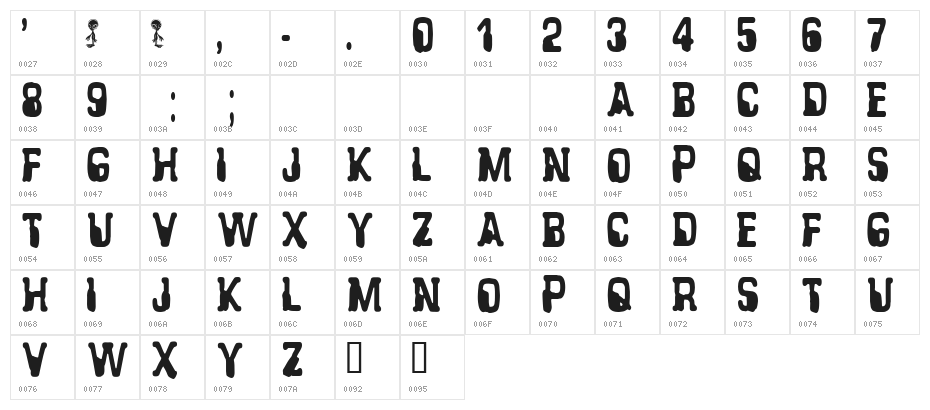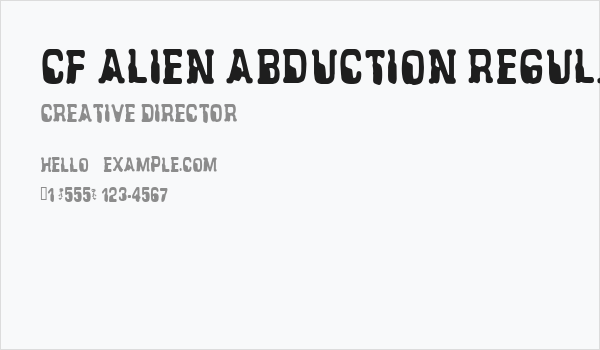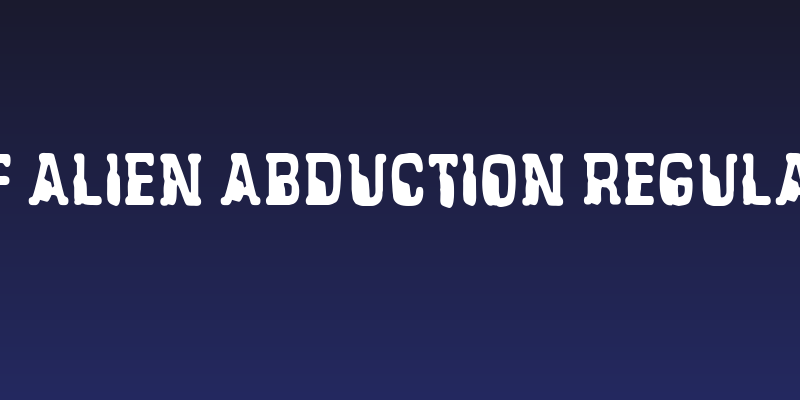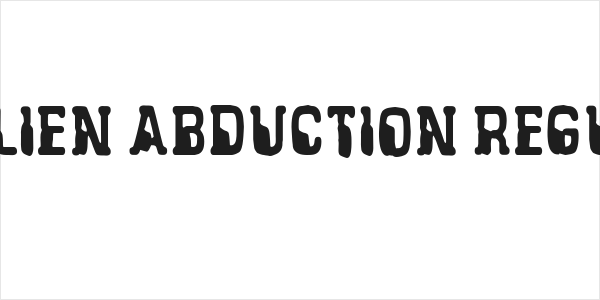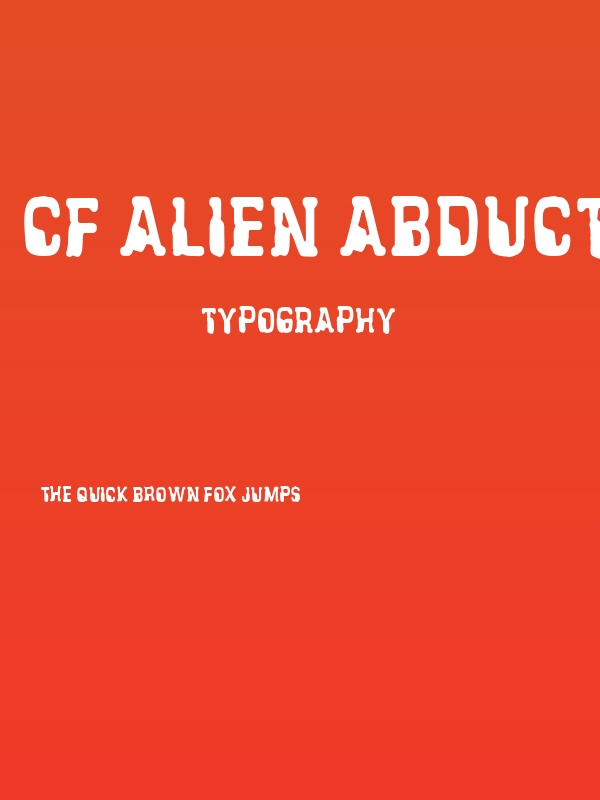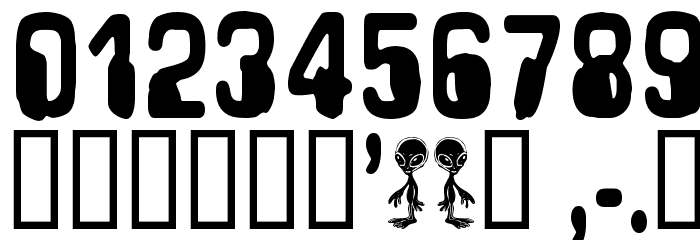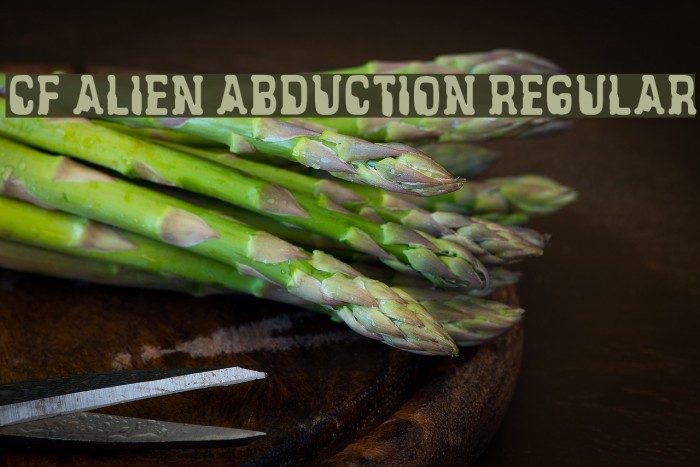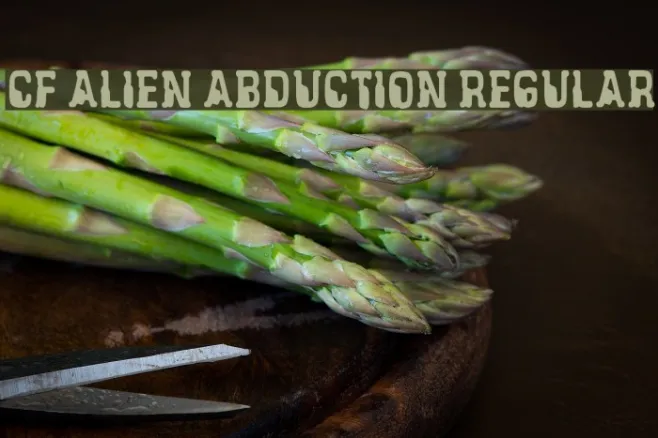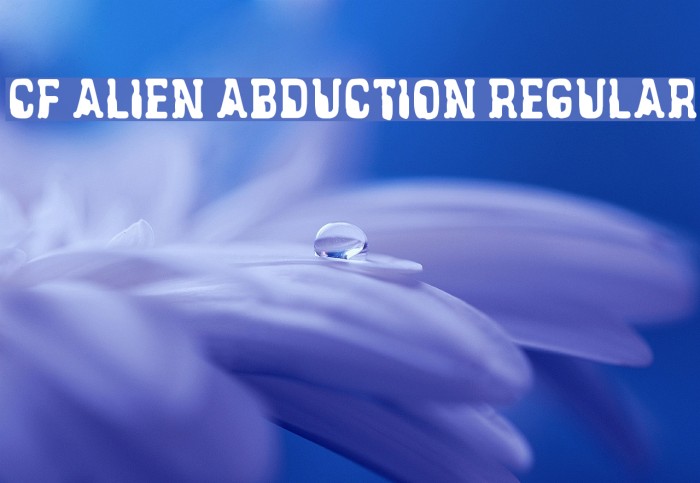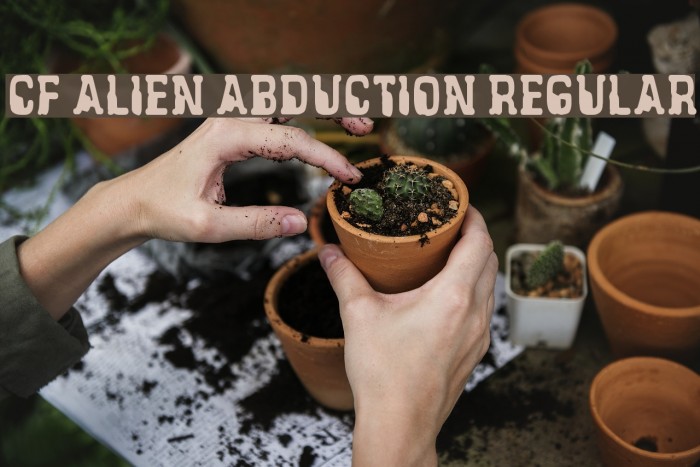
CF Alien Abduction Regular Font
CF Alien Abduction Regular Description
This font features a bold and playful design with a unique, extraterrestrial theme. The characters are thick and rounded, with irregular edges that give them a quirky, alien-like appearance. The uppercase and lowercase letters maintain a consistent style, while the numbers and special characters add to the font's whimsical nature. The overall look is both fun and eye-catching, making it ideal for creative projects that require a touch of the unusual.
| Proposed Projects | Ideal for sci-fi themed posters, children's book covers, video game graphics, and novelty merchandise. |